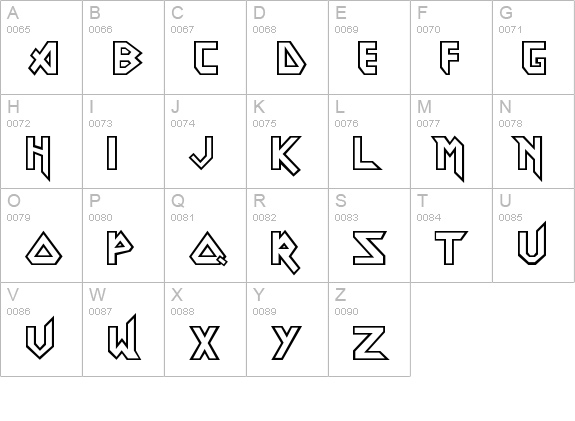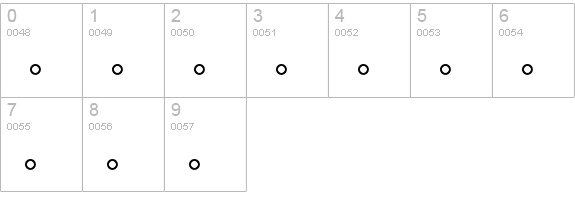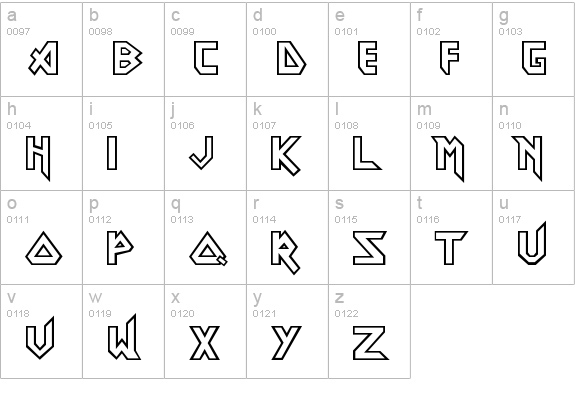
Eddie - DGL Font Details
Eddie - DGL font is a stunning display font that exudes an air of elegance and sophistication. Its sleek and modern design makes it perfect for a wide range of creative projects, from logos and branding to packaging and invitations. With its clean lines and unique letterforms, Eddie - DGL font captures attention and adds a touch of professionalism to any design. Whether you are working on a personal project or a commercial endeavor, this font is sure to make a lasting impression. One of the best features of Eddie - DGL font is that it is freely available to download at FontsMarket.com. This means that you can easily incorporate this beautiful font into your designs without any additional cost. It is a fantastic opportunity to enhance your creativity without breaking the bank. So why wait? Take advantage of the stunning Eddie - DGL font today and elevate your designs to the next level. Download it for free at FontsMarket.com and let your creativity soar.